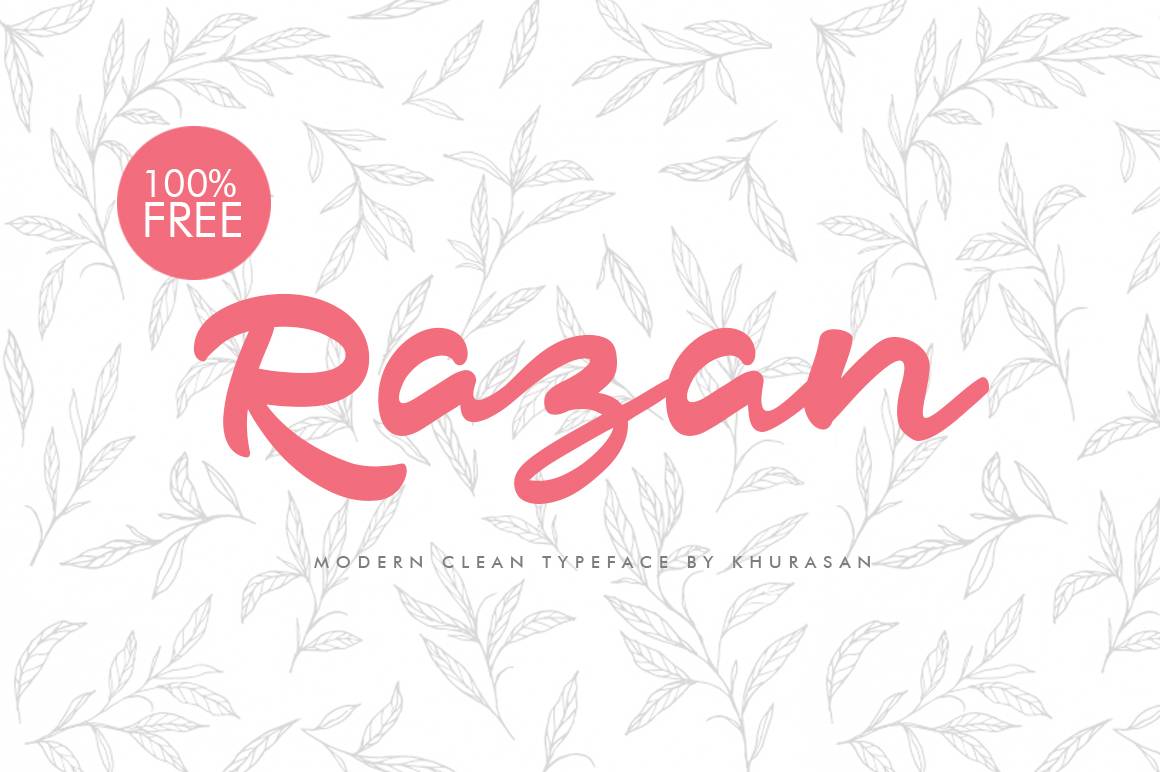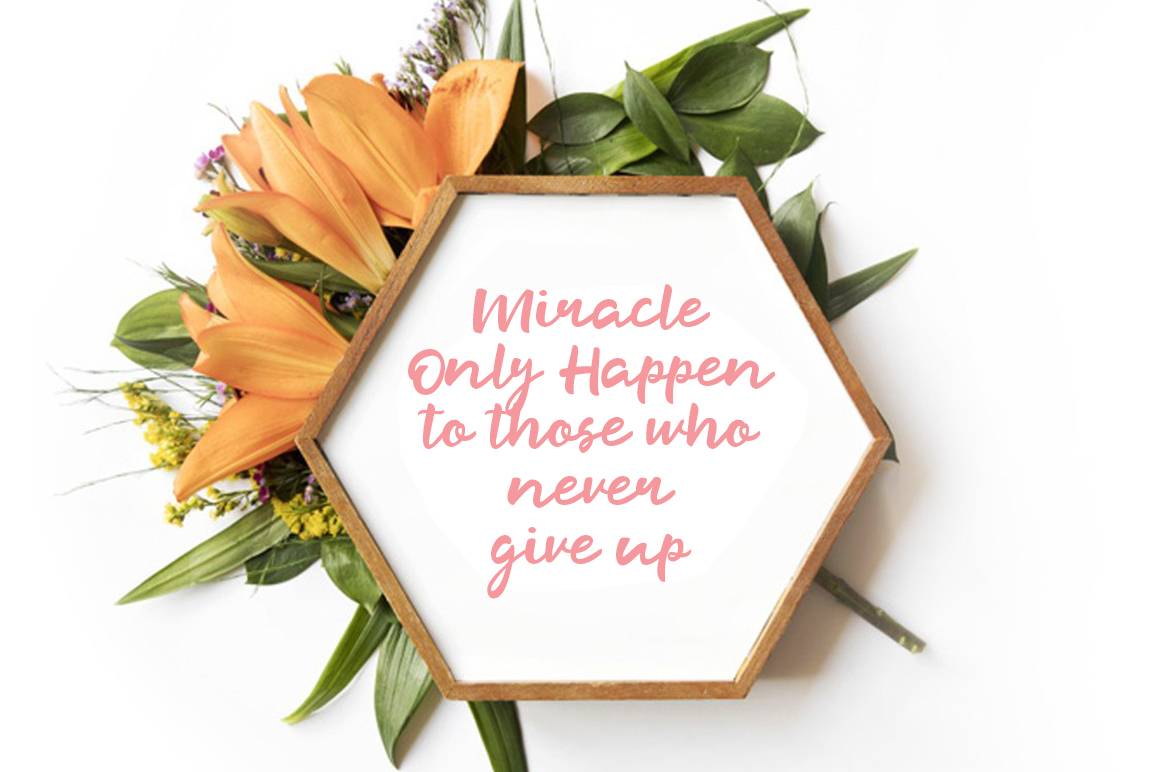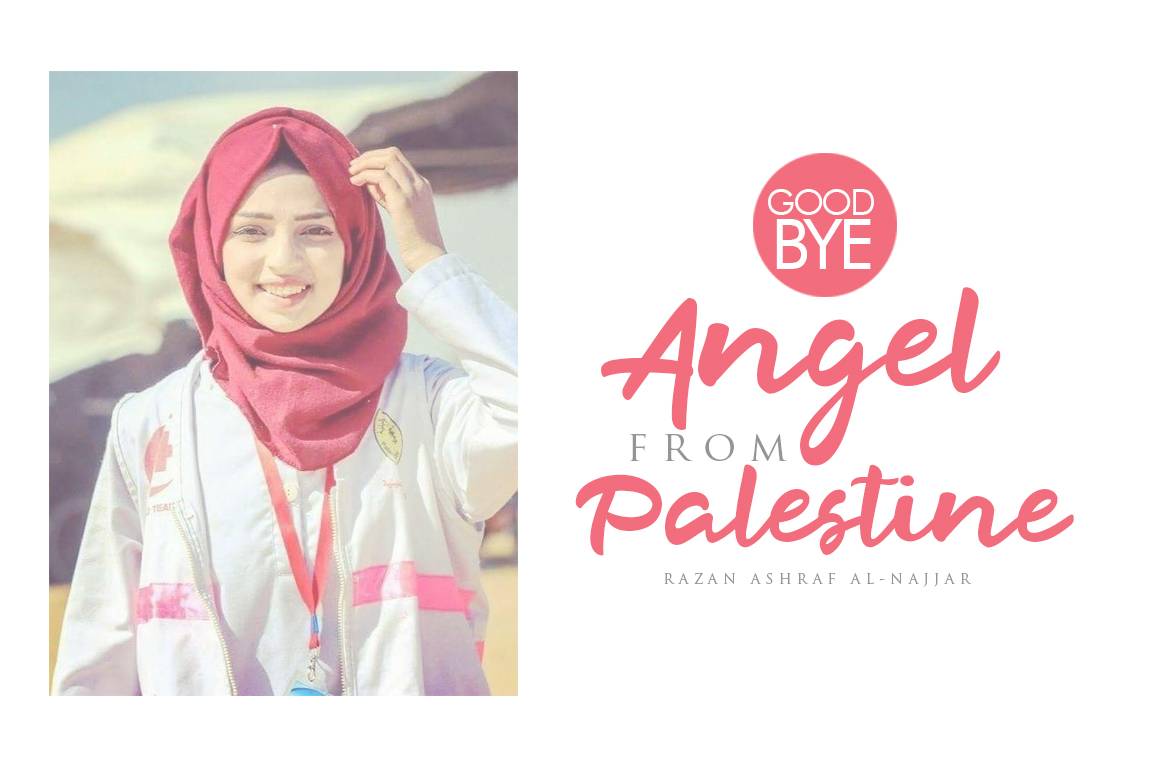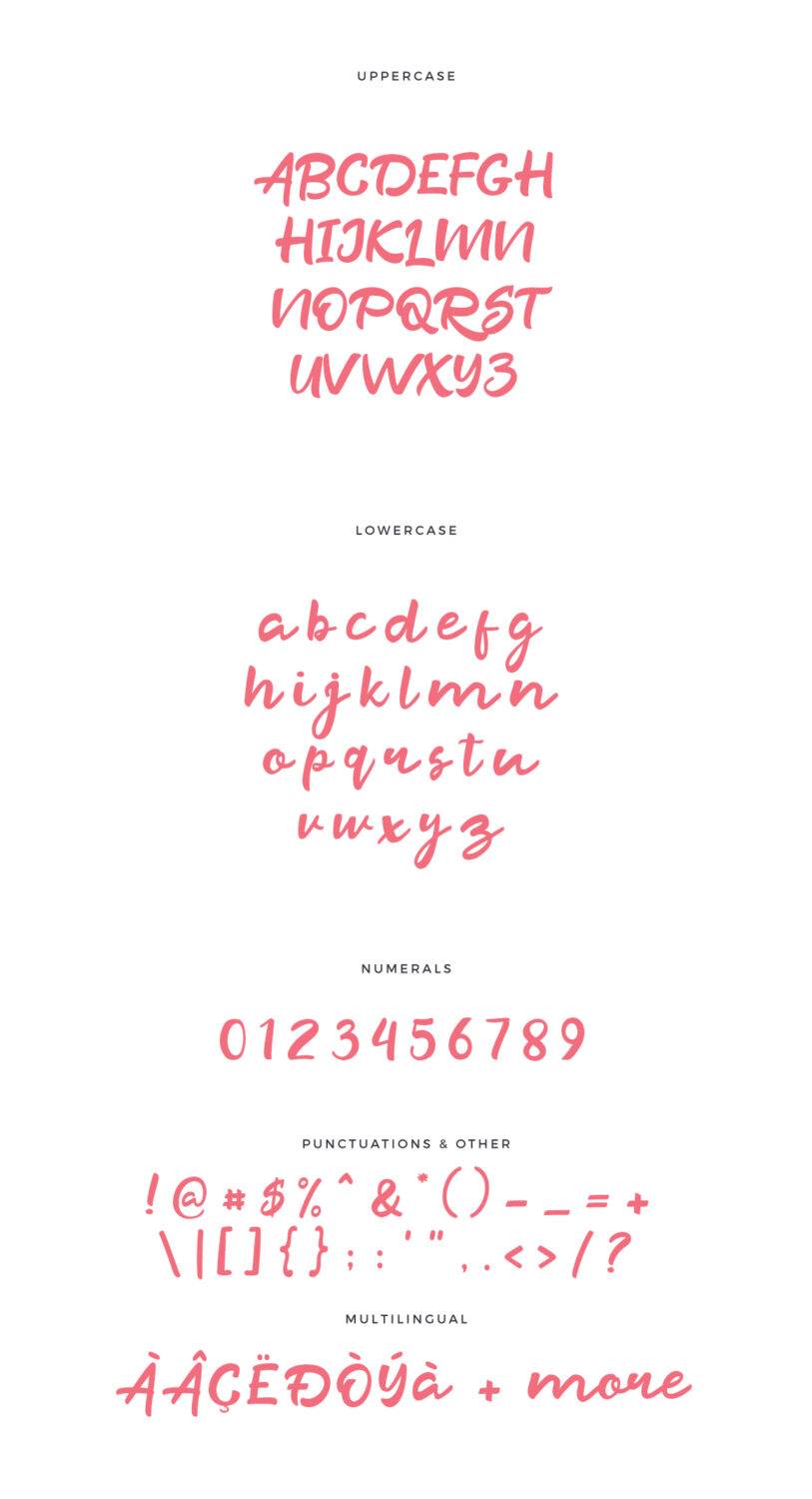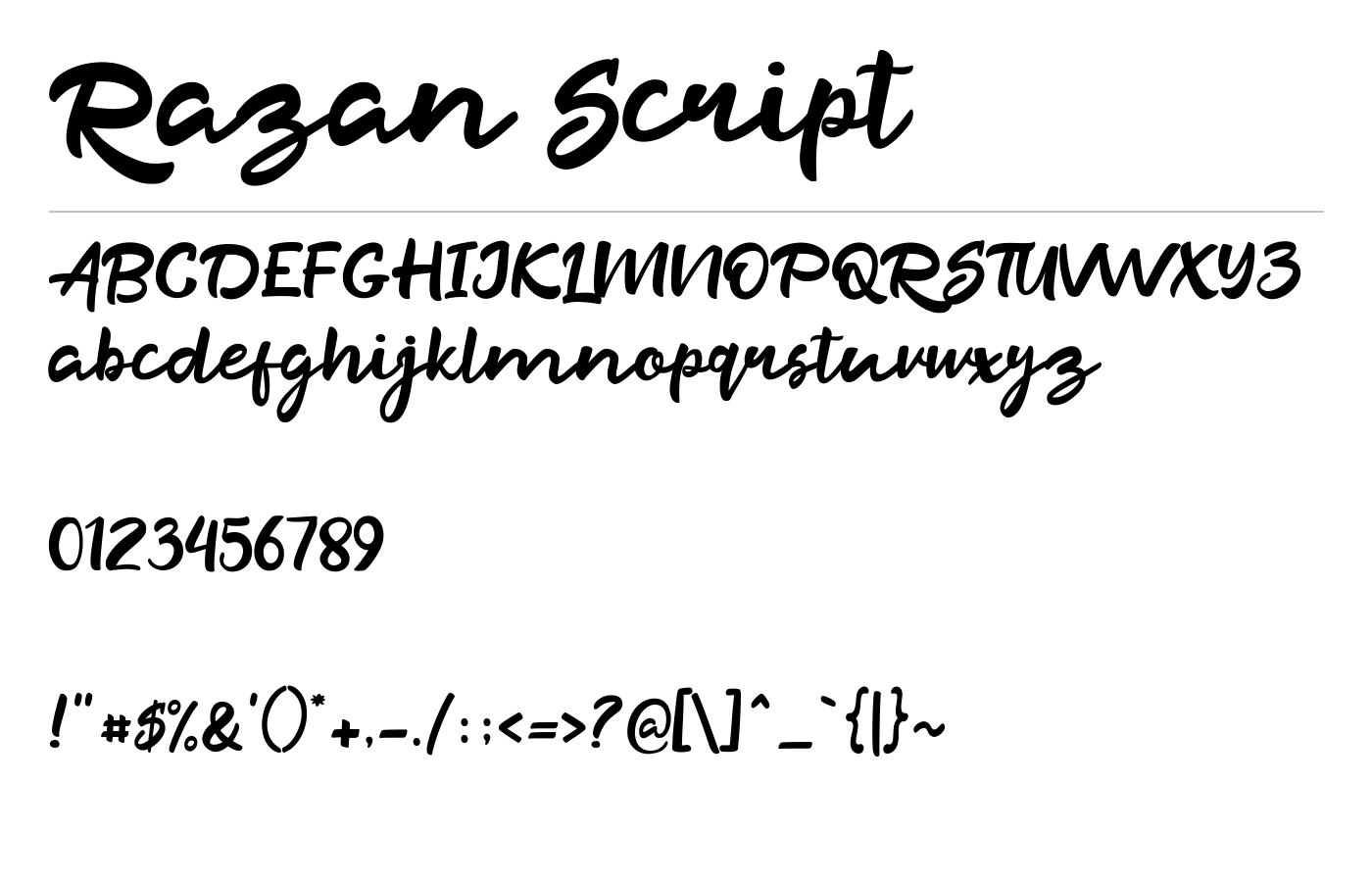
Razan Script is a bold, flowing handwritten font with a lively and casual feel. Its smooth, connected strokes and slightly rounded letterforms bring warmth and personality, making it ideal for creative projects, branding, and invitations that seek an approachable yet confident touch. This font works well in headlines and logos where an eye-catching, friendly script style is needed.
Razan Script Font
About Razan Script Font
| Font family | Razan Script Font |